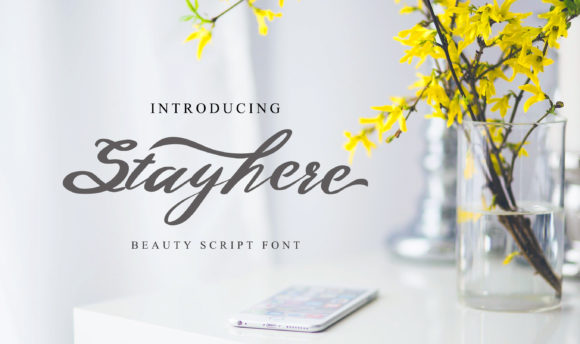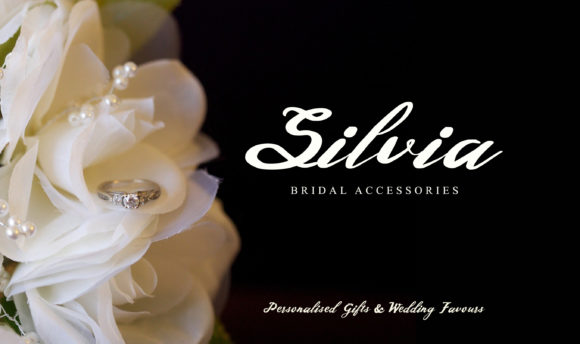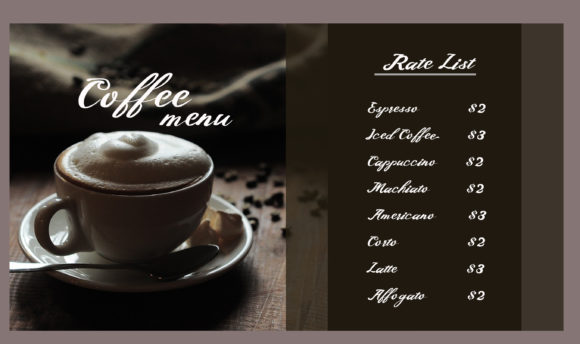
Stayhere Font
About Stayhere Font
Stayhere is a script font with is a modern and elegance styles. It is perfect for your favorite projects, such as logos, food menus, wedding invitations, and much more!